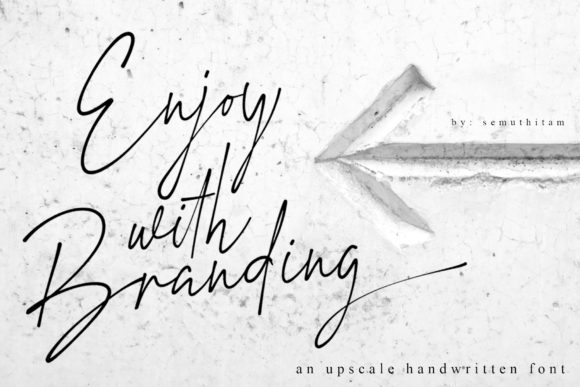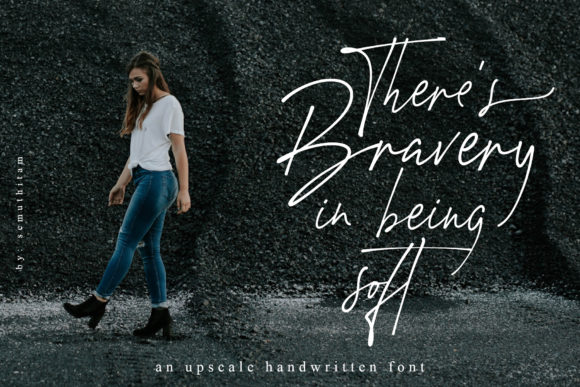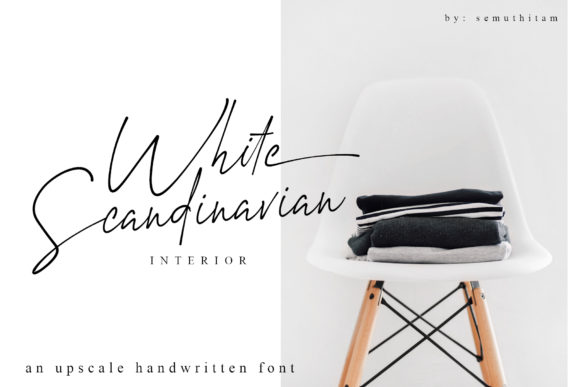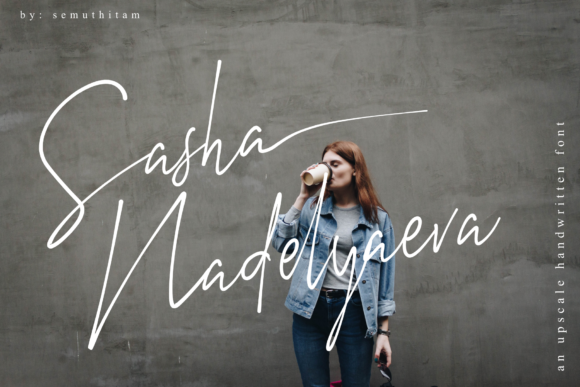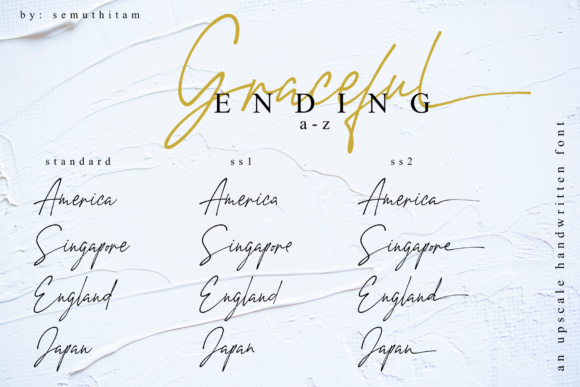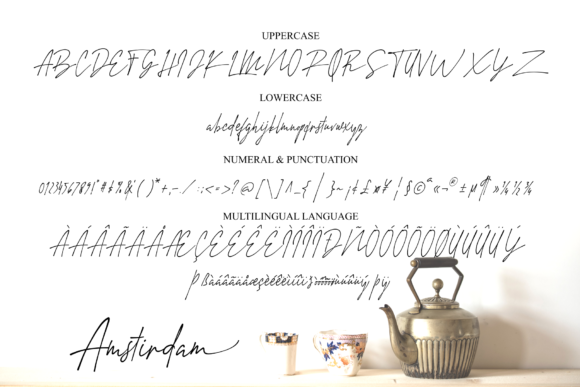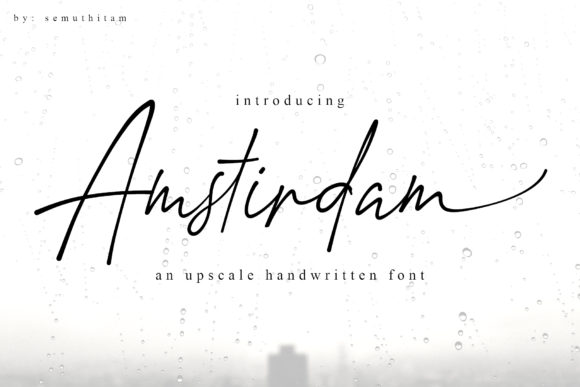
Discover the Charm of Amstirdam Font: Elevate Your Designs with Confidence and Flair
Are you on the hunt for a font that exudes authenticity, confidence, and charm? Look no further than the Amstirdam Font, a stunning and free-flowing script that is sure to take your designs to the next level. With its unique bouncy baseline, Amstirdam radiates a sense of playfulness and sophistication, making it the perfect choice for designers and crafters looking to add a touch of personality to their work.
The Characteristics of Amstirdam Font
So, what makes Amstirdam Font so special? Here are just a few of its key characteristics:
- Free-flowing script: Amstirdam features a fluid, connected script that is reminiscent of handwritten writing. This makes it perfect for creating a sense of warmth and approachability in your designs.
- Bouncy baseline: The bouncy baseline of Amstirdam gives it a unique, energetic feel that sets it apart from other fonts. This feature adds a touch of playfulness and whimsy to your designs, making them more engaging and attention-grabbing.
- Authenticity: Amstirdam’s authentic, handmade feel makes it perfect for designers who want to create a sense of realism and honesty in their work. Whether you’re creating a logo, a poster, or a social media graphic, Amstirdam will help you connect with your audience on a deeper level.
Why Designers and Crafters Love Amstirdam Font
Amstirdam Font has quickly become a favorite among designers and crafters, and for good reason. Here are just a few reasons why:
- Versatility: Amstirdam is an incredibly versatile font that can be used in a wide range of design applications, from logos and branding to posters, social media graphics, and more.
- Ease of use: Despite its unique features, Amstirdam is surprisingly easy to use, even for designers who are new to script fonts. Its clean lines and flowing curves make it a joy to work with, and its flexibility means you can use it to create a wide range of effects.
How to Use Amstirdam Font in Your Designs
So, how can you start using Amstirdam Font in your designs? Here are a few ideas to get you started:
- Logos and branding: Amstirdam’s unique features make it perfect for creating eye-catching logos and branding materials that will help your business stand out.
- Posters and flyers: Add a touch of personality to your posters and flyers with Amstirdam’s bouncy baseline and free-flowing script.
- Social media graphics: Use Amstirdam to create engaging social media graphics that will help you connect with your audience and build your brand.
Tips and Tricks for Getting the Most Out of Amstirdam Font
Here are a few tips and tricks to help you get the most out of Amstirdam Font:
- Experiment with different sizes: Amstirdam looks great in a wide range of sizes, from small and delicate to large and bold. Experiment with different sizes to find the one that works best for your design.
- Play with color: Amstirdam’s unique features make it a great choice for use with a wide range of colors. Try pairing it with bright, bold colors for a fun and playful look, or with more muted tones for a sophisticated feel.
- Combine with other fonts: Amstirdam looks great on its own, but it can also be paired with other fonts to create a unique and eye-catching effect. Try combining it with a clean sans-serif font for a modern look, or with a serif font for a more traditional feel.
In conclusion, Amstirdam Font is a stunning and versatile script font that is sure to elevate your designs with confidence and charm. Its unique bouncy baseline and free-flowing script make it perfect for a wide range of design applications, from logos and branding to posters, social media graphics, and more. And with its ease of use and free availability, there’s never been a better time to give Amstirdam a try.